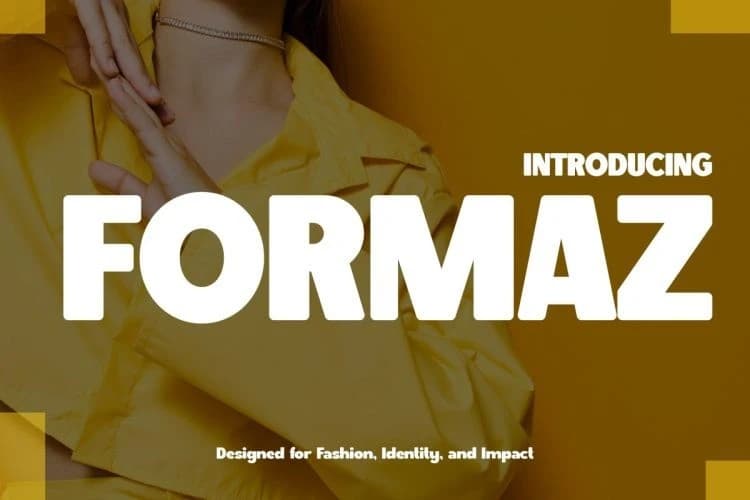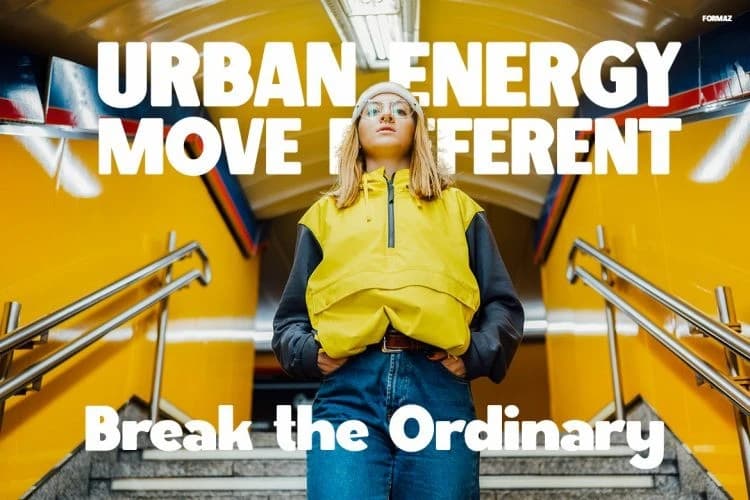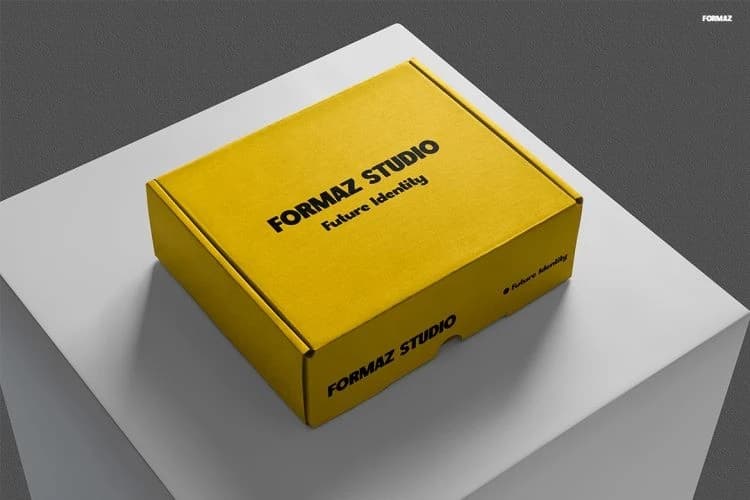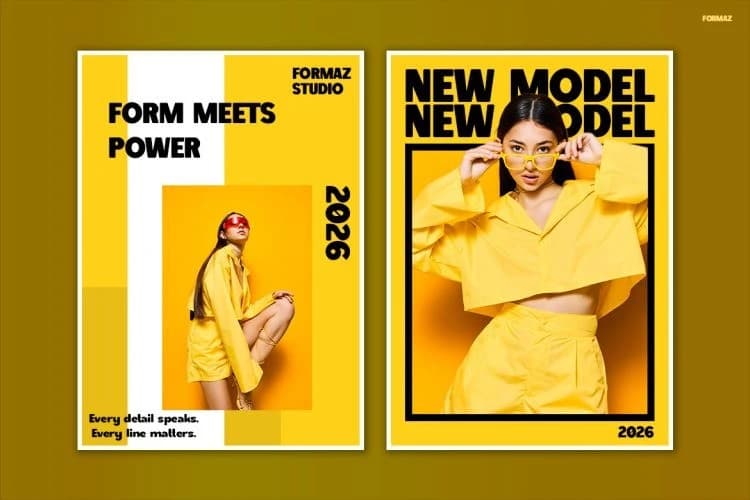
Formaz Font
FORMAZ Font is a powerful, clean-cut typeface designed to deliver bold impact with a sleek urban edge. Moreover, its strong geometric shapes and confident letterforms create a high-fashion, editorial feel that instantly stands out.